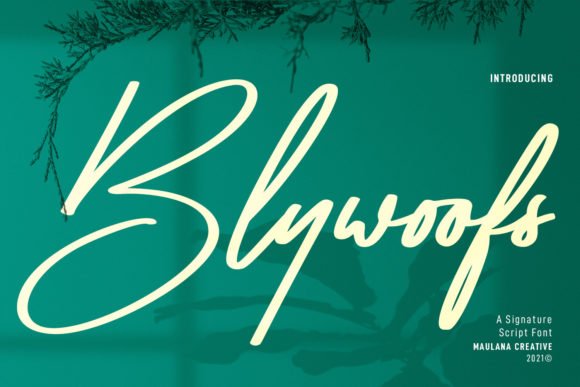
The Perfect Brush Stroke: Unlocking the Power of Blywoofs Font
Have you ever sat down with a blank sheet of paper, a pen in hand, and a burst of creativity that just wouldn’t quit? For designers, those moments are a dream come true. But what if you could capture that same feeling in a font? Enter Blywoofs Font, a stunning signature script font that’s perfect for adding a touch of elegance to your designs.
Blywoofs Font is more than just a pretty face – it’s a versatile tool that’s ideal for logo design, social media graphics, movie titles, book covers, and so much more. With its regular felt-tip stroke, this font is designed to make a statement. And for designers, that’s exactly what it delivers – a unique and eye-catching way to express your creativity.
Blywoofs Font Key Features
- Font Style: Blywoofs Font is a unique, handwritten script font with a whimsical and playful feel.
- Language Support: Supports Latin, Cyrillic, and Greek alphabets, making it a versatile choice for multilingual designs.
- Unique Characteristics: Features a distinctive, hand-drawn feel with subtle imperfections and variations in letterforms, adding a touch of personality to designs.
Blywoofs Font Review
I recently had the chance to work with the Blywoofs Font, and I must say it’s an interesting choice. Here are my honest thoughts:
- The font’s unique, whimsical feel is sure to add a touch of personality to any project.
- It’s particularly effective for titles, headings, and other emphasis-heavy elements.
- The font’s consistency is also a plus – it’s easy to recognize and use across different contexts.
- The font can be overwhelming if used extensively. It’s best to use it sparingly to avoid visual fatigue.
- The font’s readability, particularly in smaller sizes, can be a challenge. This may require additional styling or font combinations.
The Blywoofs Font is a fun, eye-catching choice that can elevate a project’s visual identity. However, its limitations should be carefully considered to avoid overwhelming the user. With a thoughtful approach, this font can be a valuable addition to any design toolkit.
For best results, use Blywoofs Font for headings and titles to add a touch of whimsy to your design.
Use Blywoofs Font to add a playful touch to your graphics and illustrations.
Use Blywoofs Font to add a touch of personality to your presentations and documents.
Blywoofs Font is perfect for:
- Designing playful and whimsical graphics.
- Creating eye-catching headings and titles.
- Adding a touch of personality to presentations and documents.
- Designing children’s books and educational materials.